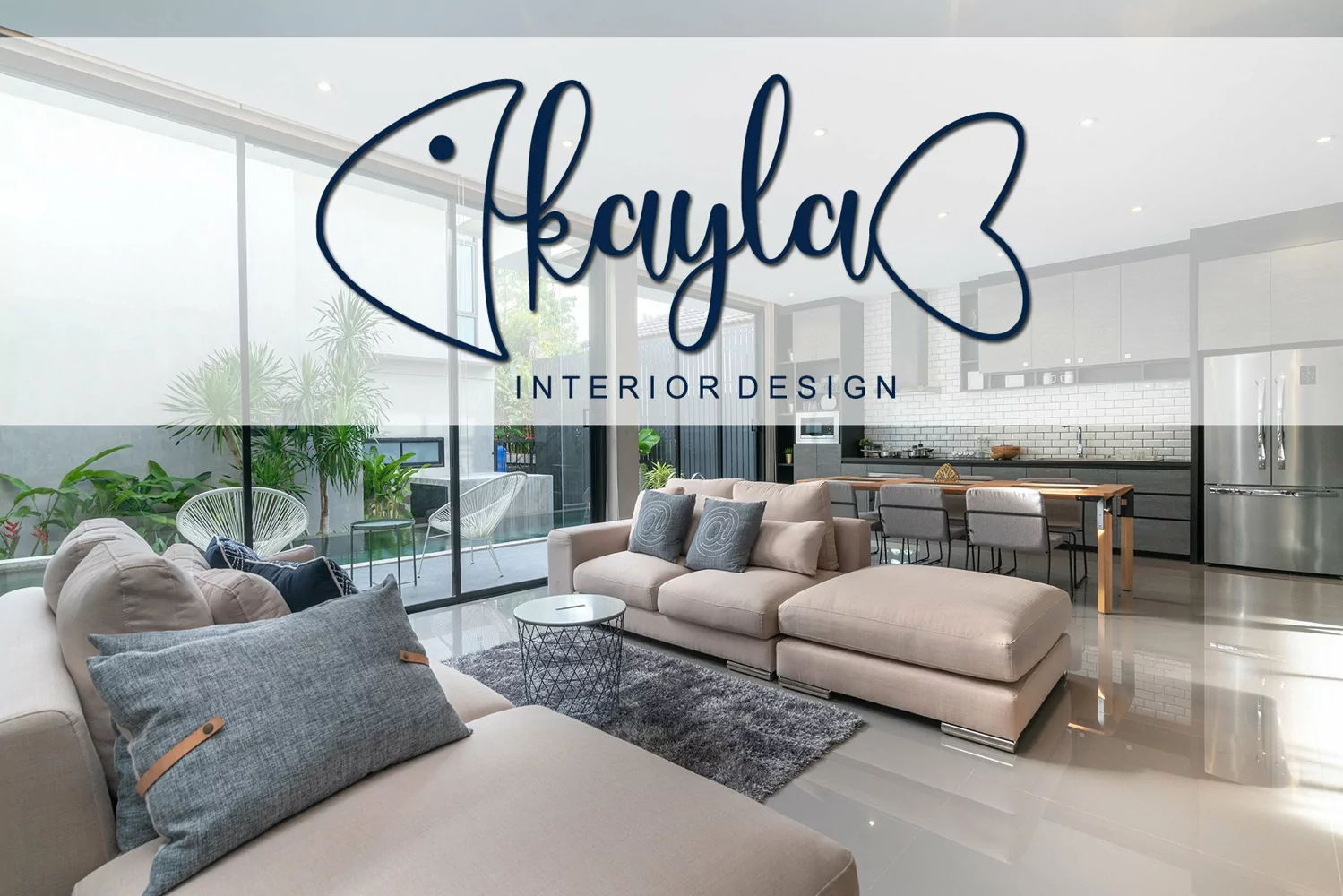
Beautiful Handwritten
FISHBONE
Fishbone Font is a modern calligraphy font by Letterafa Studio. It has flowing letters that will give your designs logo a unique with a fish model. fishbone font is perfect; logos, greeting cards, a package design, a brand identity, craft design, any DIY project, book title, wedding invitation, packaging, and more.
- Basic Uppercase and Lowercase
- Lowercase Alternate (a-z) and Swash (a-z)
- Ligature
- Number and Punctuation